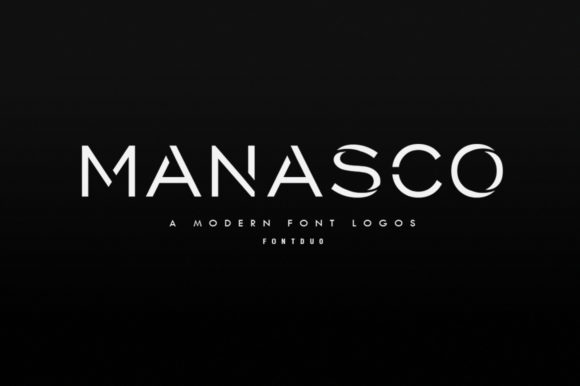
Immerse yourself in the world of typography with Manasco Font, a captivating sans serif font family designed to elevate your digital designs to new heights. Crafted with precision and elegance, Manasco's clean lines and legible letterforms make it the perfect choice for text wrapping, ensuring your words flow seamlessly and effortlessly on the screen.
Unleash your creativity with Manasco's extensive character set, featuring OpenType features, stylistic alternates, and ligatures that add a touch of sophistication and charm to your work. Experiment with a wide range of languages, including Latin-based languages, and discover the endless possibilities that await you.
Whether you're a seasoned designer or just starting your typographic journey, Manasco is your ultimate companion. Its user-friendly nature and adaptability make it suitable for a multitude of projects, from captivating logos and branding materials to immersive web designs and editorial layouts.
Elevate your designs with Manasco, the text wrapping virtuoso that seamlessly blends aesthetics and functionality. Its simplicity and elegance will leave a lasting impression on your audience, making your words shine brighter than ever before.
Experience the allure of Manasco today and let your creativity soar to new horizons!